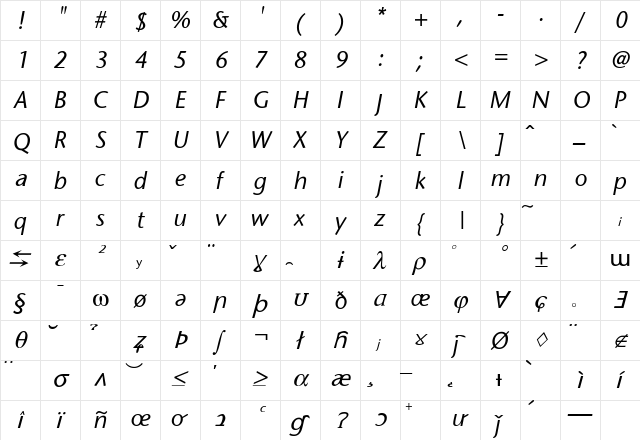
GoianaSSK Italic
Design Context for GoianaSSK Typeface
GoianaSSK takes a measured approach to typography — its balanced proportions and neutral character make it a reliable workhorse for both digital and print work. Its italic angle brings a sense of urgency and motion to the letterforms.
Pro Tip: Try GoianaSSK for annotation and caption copy alongside an upright companion — the contrast in angle creates a dynamic but ordered typographic system.